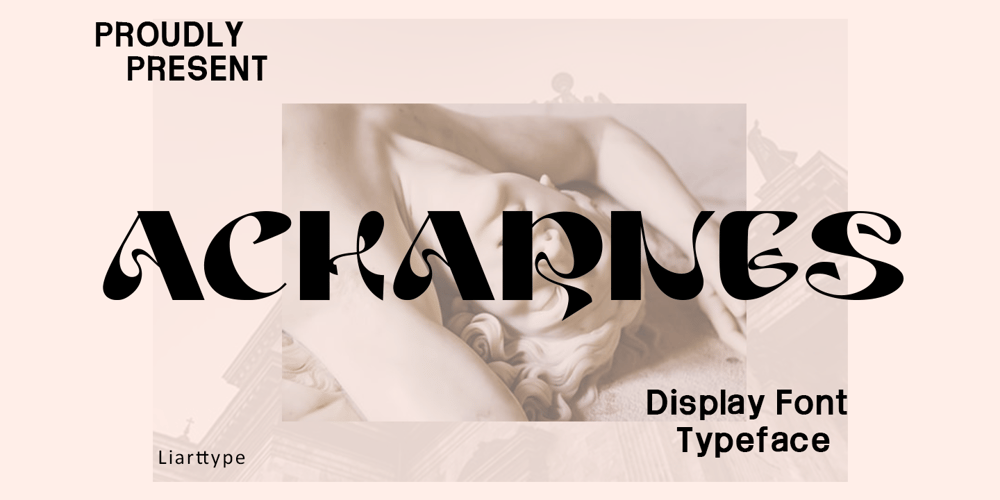
Acharnes Font Family was designed by Ali Sifak Muftari and published by Liartgraphic. Acharnes contains 1 styles and family package options. Hello gaes!How are you guys doing ? i’m sure that’s nice!Meet our newest product, we call this product Archanes font.Archaness font are display typeface fontWhit a uniqe touch and assertiveArchanes font is very nice to use on:fashion magazine,logos, ,and photography,landing page,fliyer,What’s includes- mutilngual support- alternate- ligatureThank you,salutationsAli Sifak Muftari